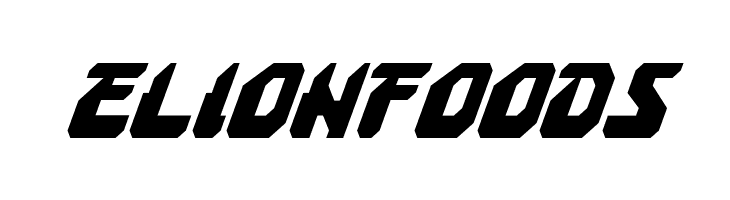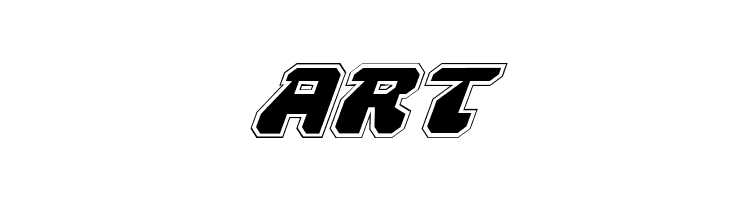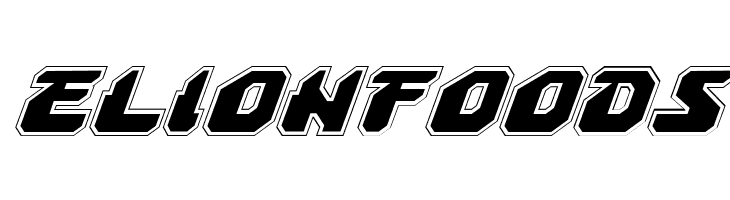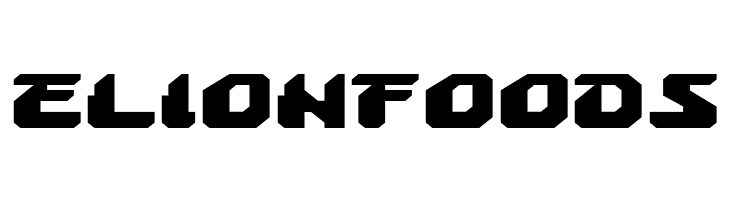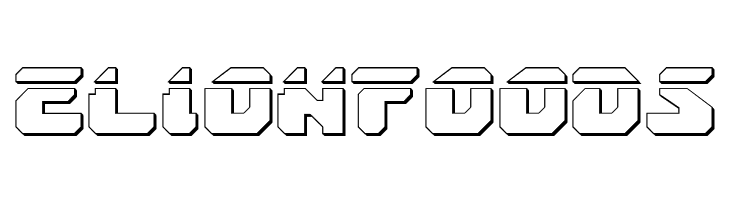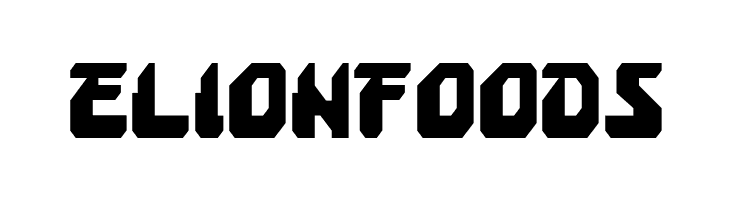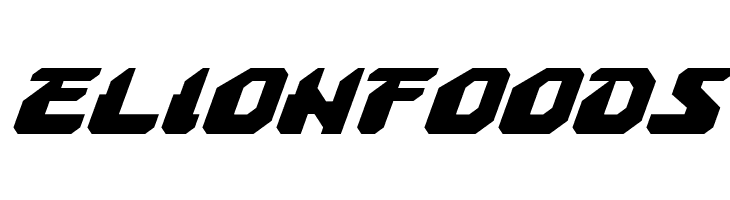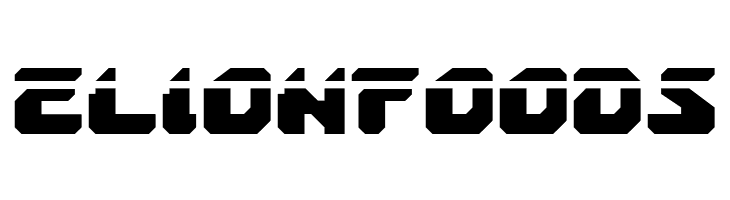
• Astropolis Academy Italic
A bold, futuristic italic font with geometric shapes and outlined characters.
• Astropolis Condensed
A bold, geometric, and futuristic font with a condensed style.
• Astropolis Condensed Italic
A bold, condensed italic font with a futuristic and dynamic style.
• Astropolis Expanded
A bold, futuristic font with geometric shapes and wide characters.
• Astropolis Expanded Italic
A bold, italic, and futuristic font with angular, expanded characters.
• Astropolis Italic
A bold, italicized font with a futuristic and dynamic design.
• Astropolis Laser
A bold, futuristic font with geometric angles and a sci-fi aesthetic.
• Astropolis Laser 3D
A futuristic, geometric font with a 3D effect and sharp angles.
• Astropolis Laser 3D Italic
A futuristic, 3D, italic font with a bold, geometric design.
• Astropolis Laser Academy
A futuristic, bold font with geometric, blocky characters and a strong, digital aesthetic.